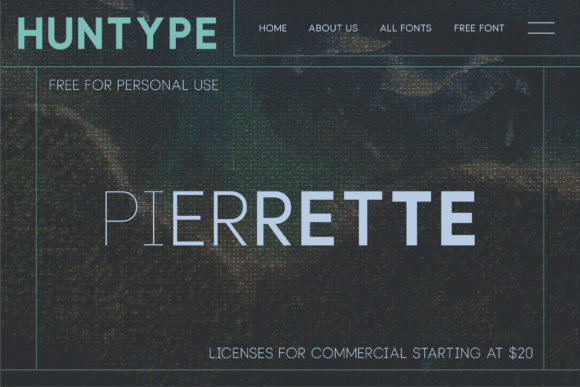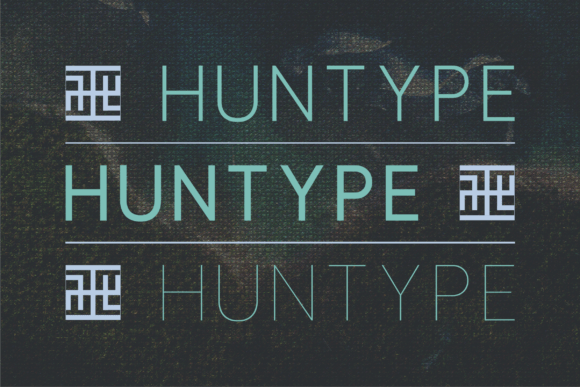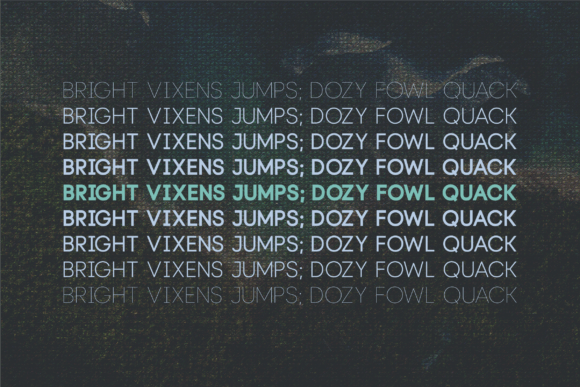
Introduction to Pierrette Font
Imagine you’re staring at a blank canvas, waiting for the perfect design to come to life. Your mind is racing with ideas, but something’s missing – a font that exudes elegance and sophistication. This is where the Pierrette Font family comes in, a game-changing design resource that will elevate your creative projects to the next level.
With its five distinct weights, Pierrette Font offers unparalleled versatility, making it the perfect choice for designers and content creators. Whether you’re working on a subtle and delicate project or a bold and impactful statement, this font family’s seamless blend of modernity and sophistication ensures your work will shine with distinction. And the best part? It’s available for a free download, complete with a high-quality, transparent background that will make your designs pop.
- High-quality design resource ideal for creative projects, offering a unique and elegant aesthetic.
- Includes a wide range of characters, including uppercase and lowercase letters, numbers, and punctuation marks.
- Perfect for use in logos, typography-based designs, and other creative projects requiring a touch of sophistication and elegance.
Honest Review: Pierrette Font
I recently had the opportunity to work with the Pierrette Font, and I must say it’s been a pleasant experience. This font is a fantastic design resource for any creative project that requires a touch of elegance and sophistication.
One of the standout features of the Pierrette Font is its high quality and versatility. It’s perfect for both digital and print projects, and it’s available for free download, which is a huge plus.
- ✨ Elegant and sophisticated design
- ✨ High quality and clear typography
- ✨ Perfect for digital and print projects
- ⚠️ Limited character set, may not be suitable for extensive text-based projects
Overall, I’m impressed with the Pierrette Font. It’s a great design resource that’s perfect for any creative project that requires a touch of elegance and sophistication. Just be aware of its limitations and use it accordingly.